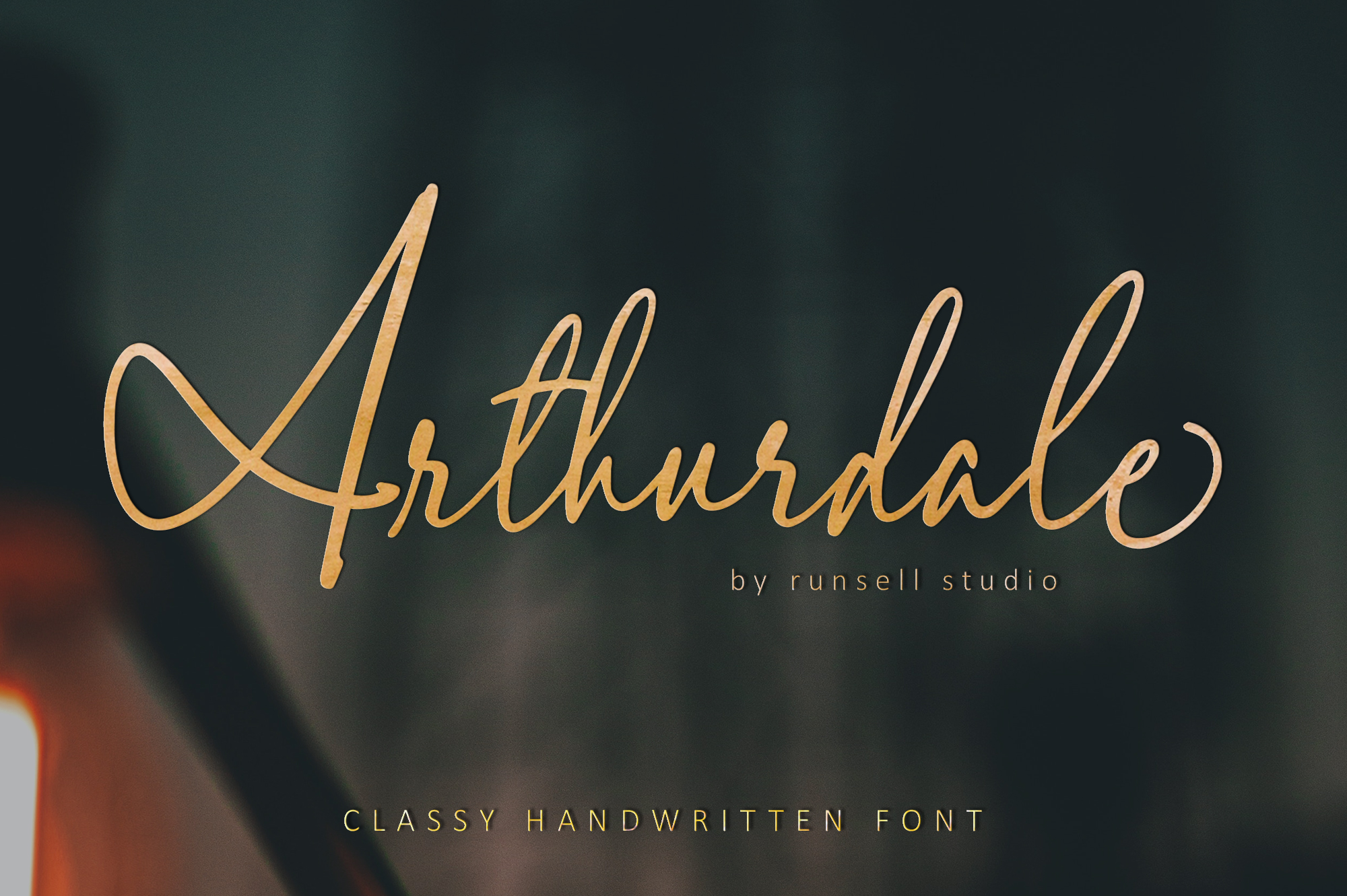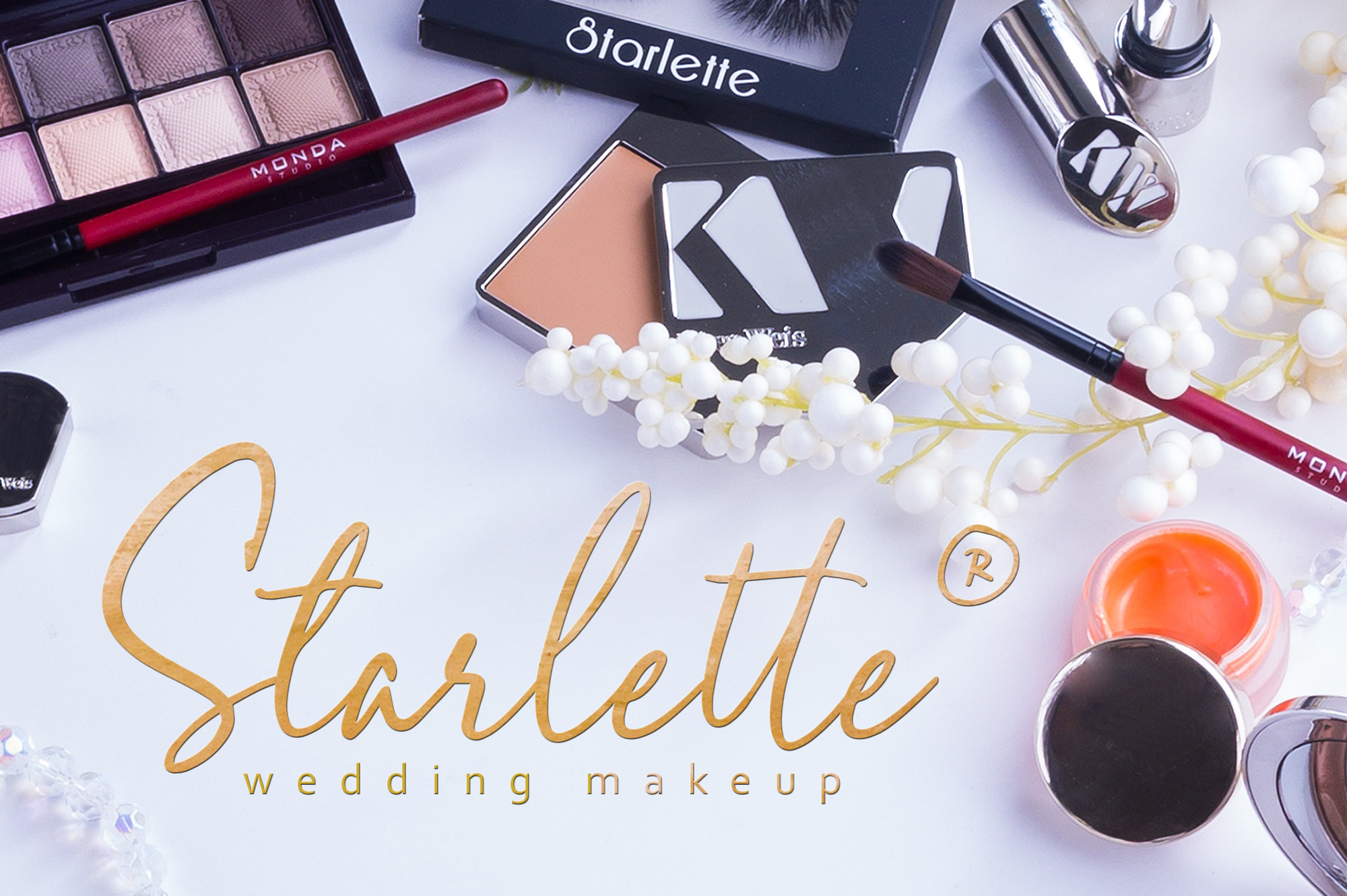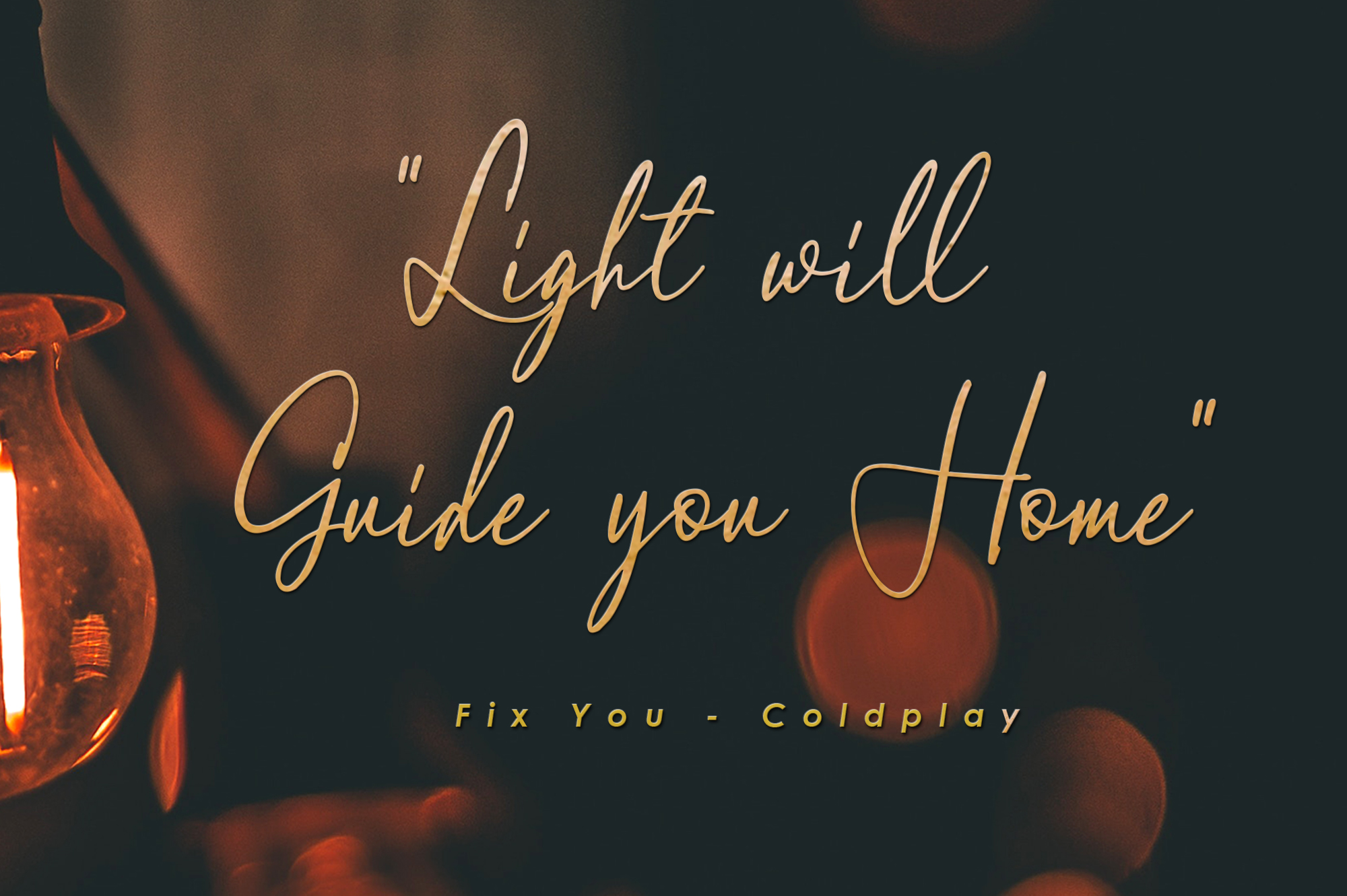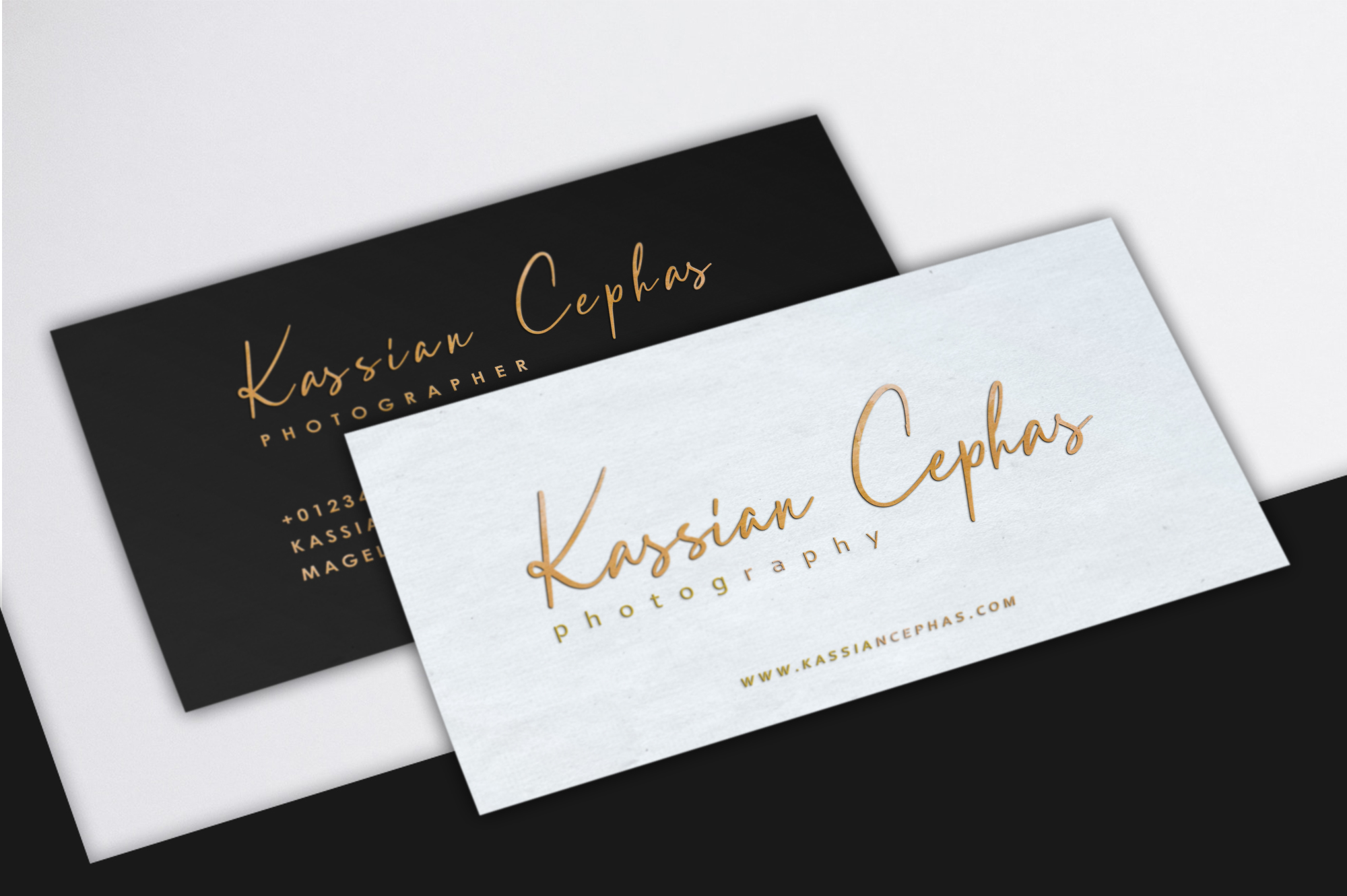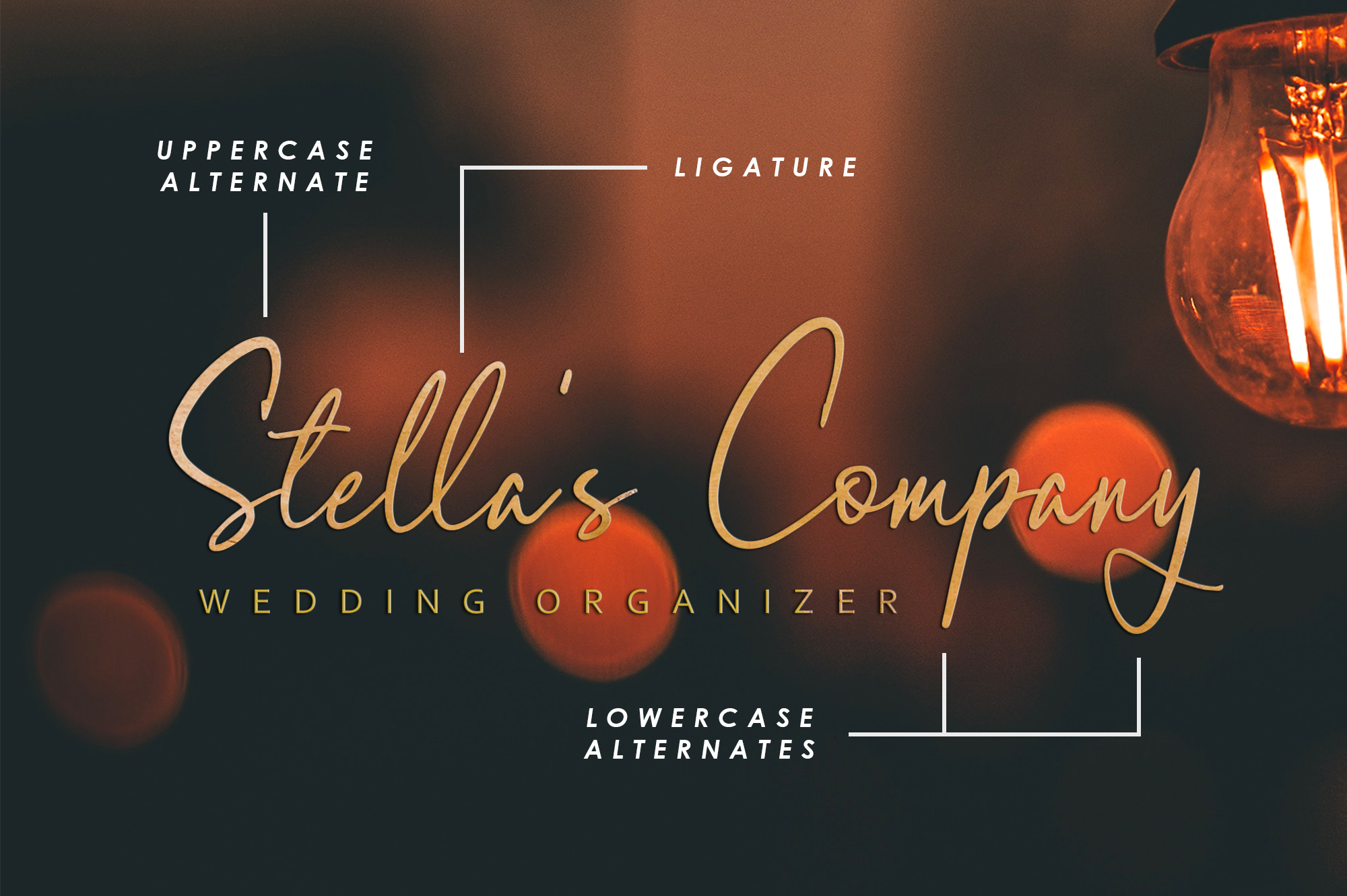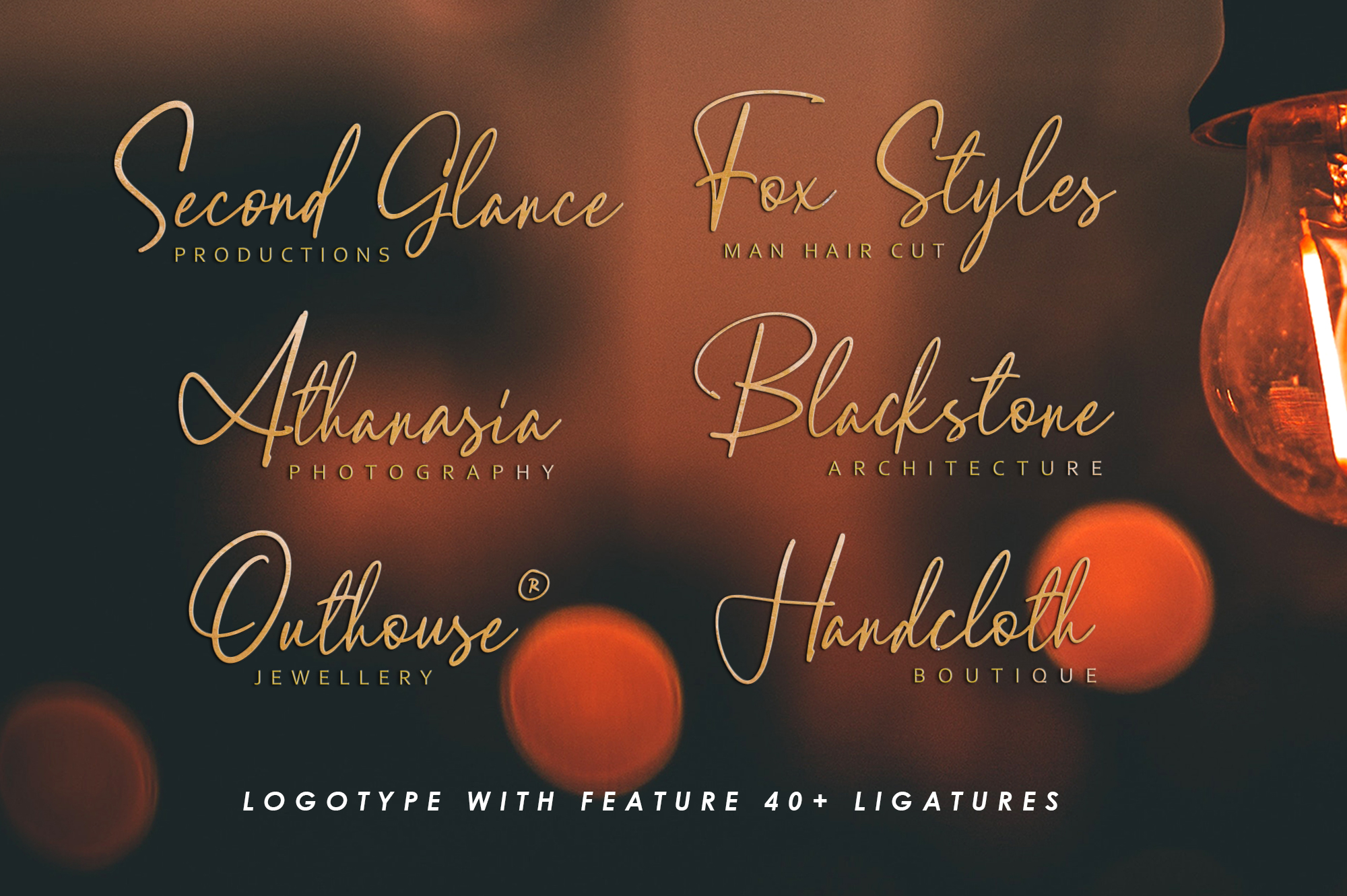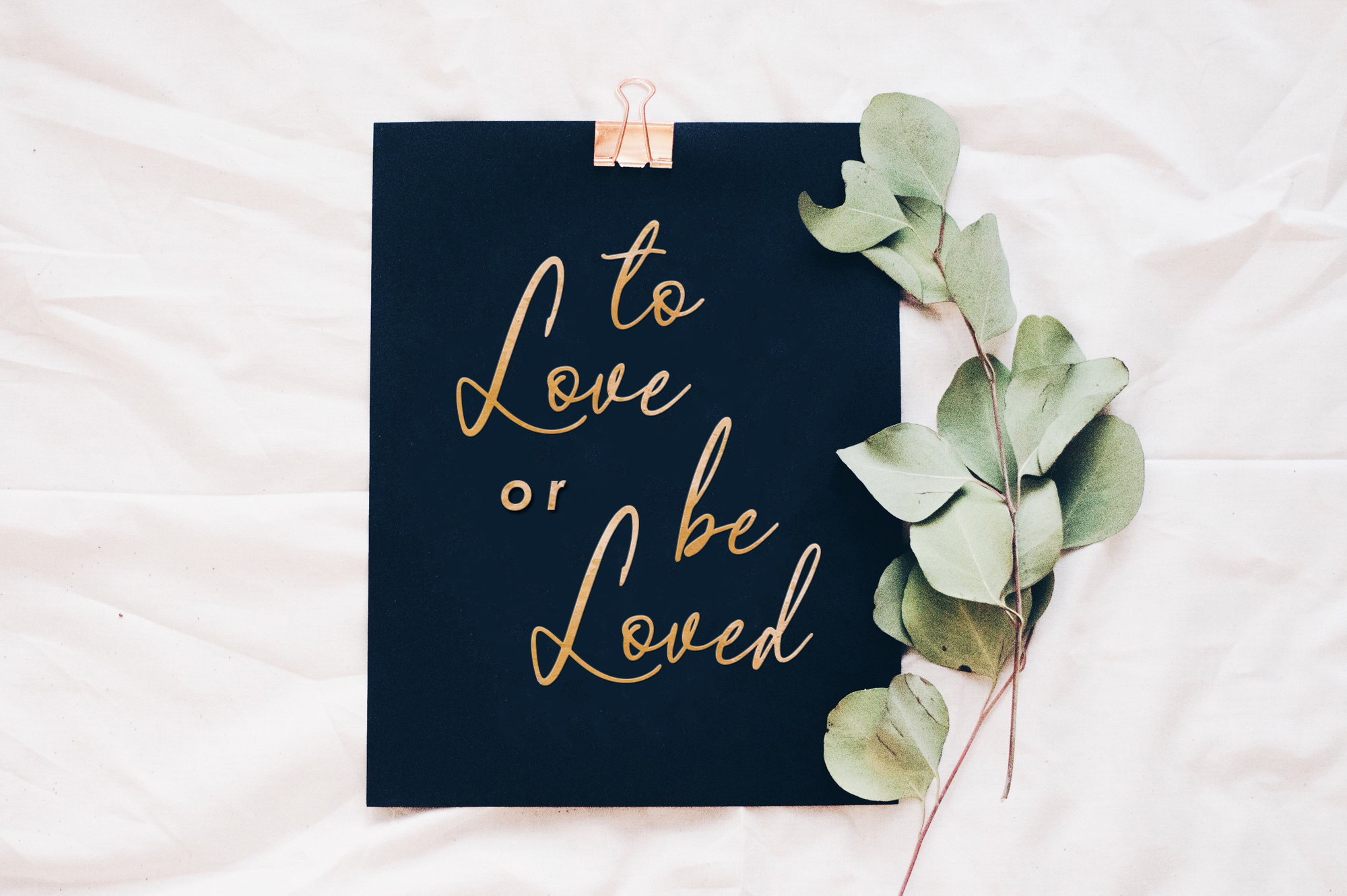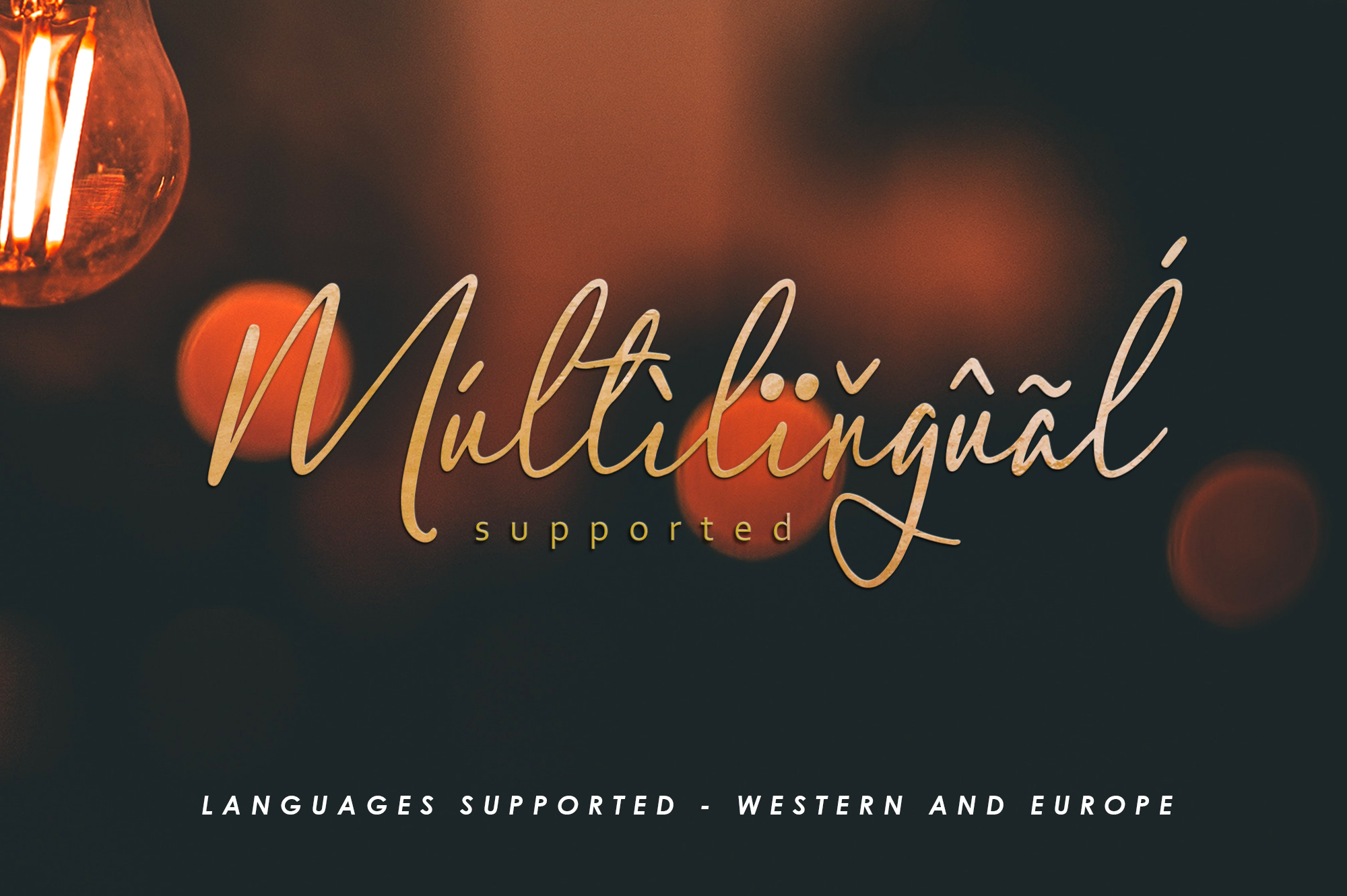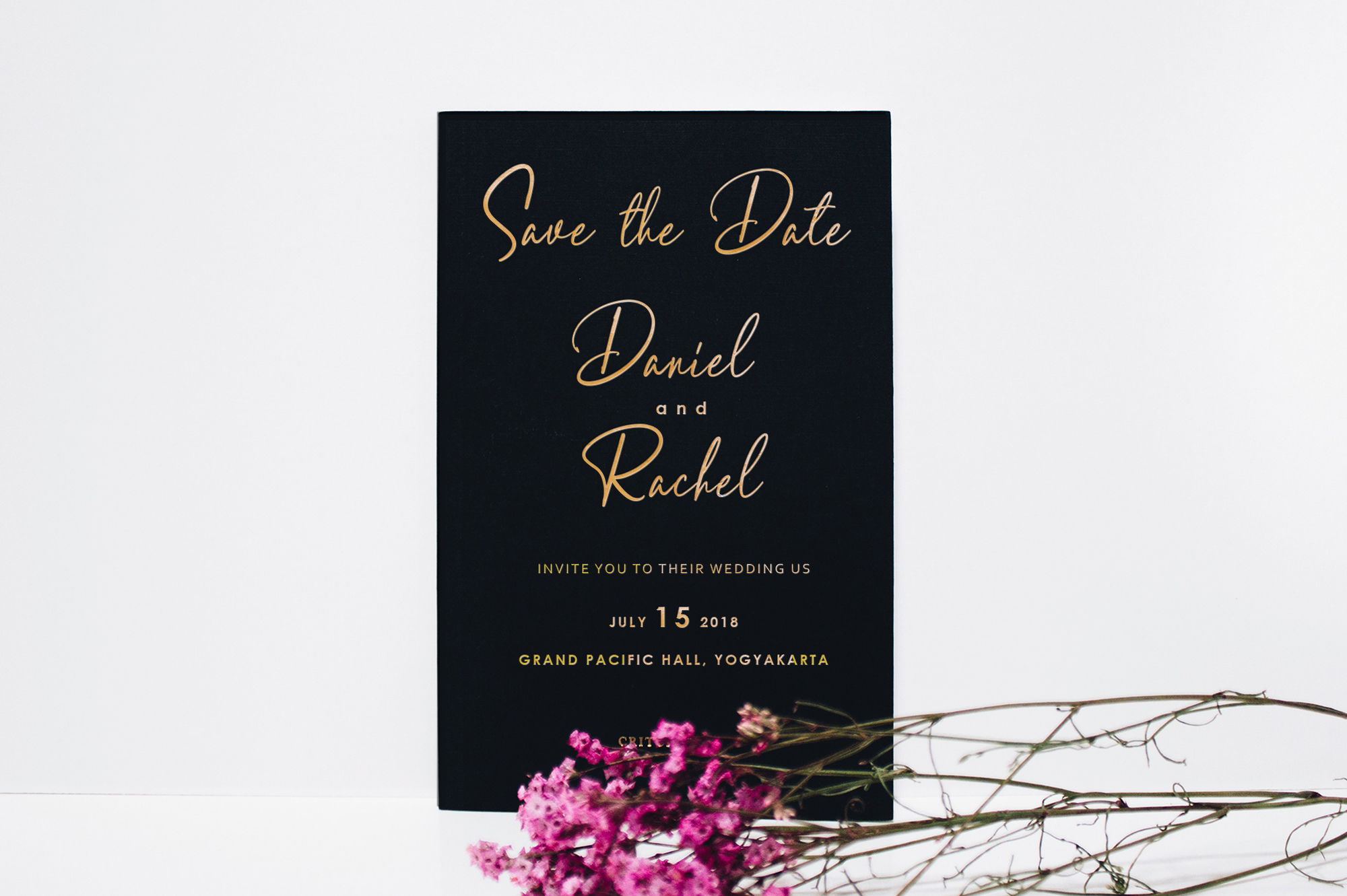
Arthurdale
Arthurdale is a classy handwritten script font designed to bring an air of sophistication and charm to your design projects. With its elegant flow and natural brush stroke, this font is perfect for branding, wedding invitations, logos, and packaging that demand a personal yet luxurious touch. The subtle irregularities mimic authentic handwriting, making each composition feel warm and approachable.
Packed with over 40 ligatures, alternate characters, and multilingual support, Arthurdale provides versatile options for customization. Whether you’re designing for boutique brands, fashion editorials, or romantic quotes, this font effortlessly adds a stylish, modern signature aesthetic to your work.